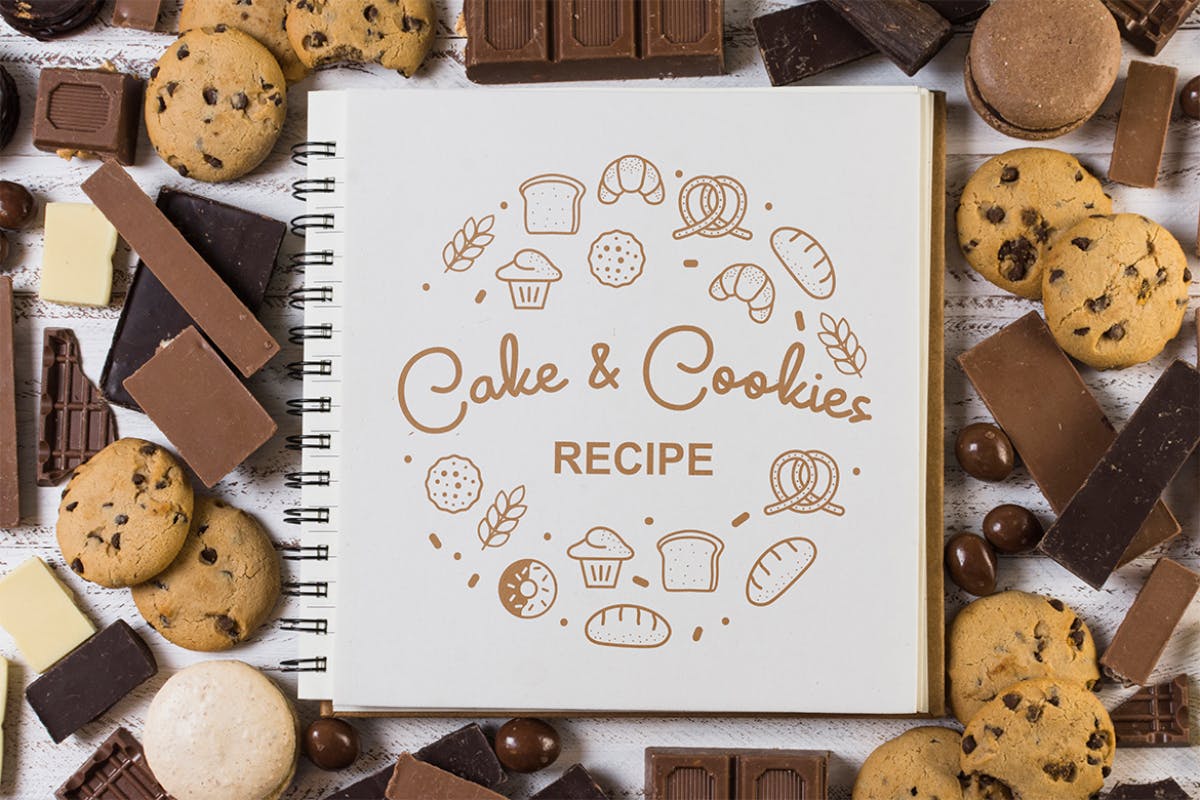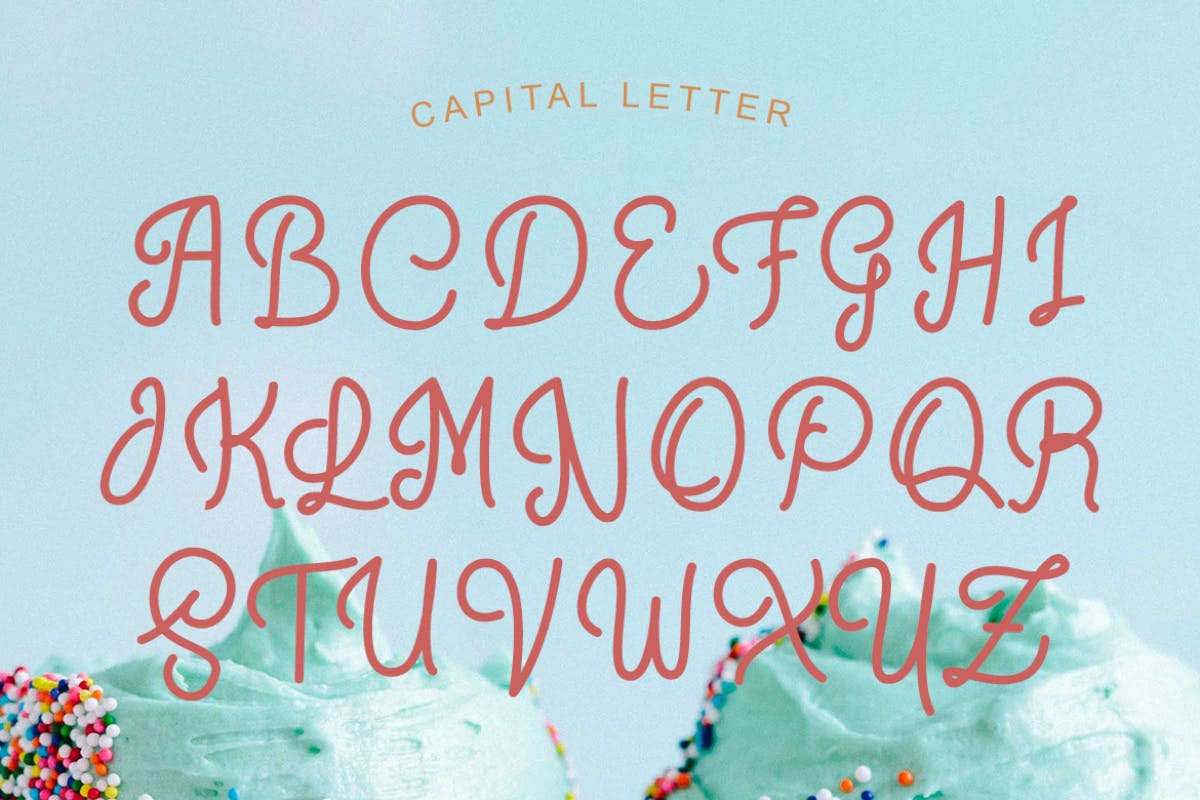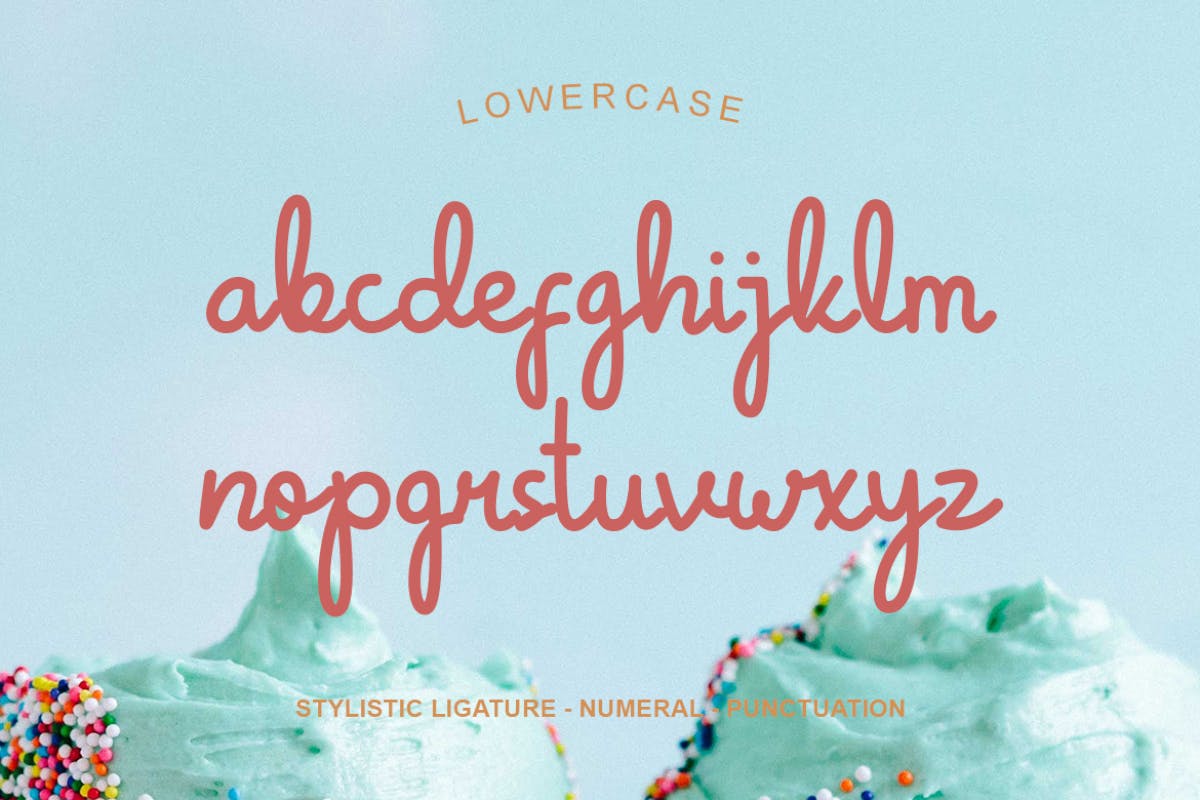
Free Crunchy Pasta Script Font
Free Crunchy Pasta Script Font is a marvelous font. It is also a playful font that you can be useful to your projects such as a cover book, invitations, flyer, gift card, and more. However, this demo font is only available for personal use license.